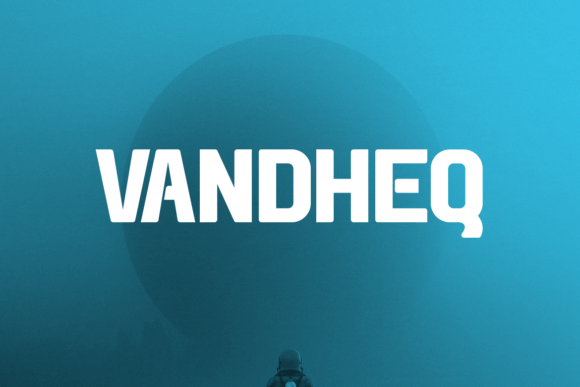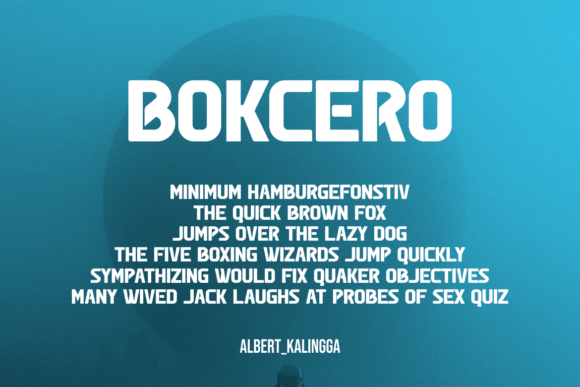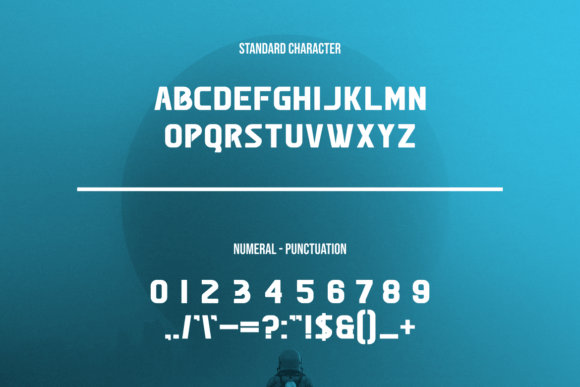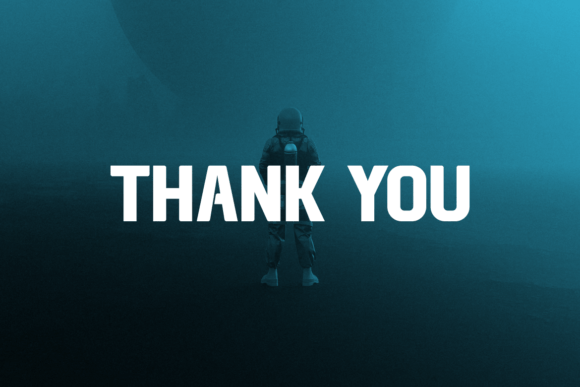
The Ultimate Guide to Bokcero Font: Elevate Your Designs with this Modern Display Font
I’ll never forget the time I was working on a branding project for a trendy coffee shop. My client wanted a font that was both modern and eye-catching, but I was struggling to find the perfect fit. That’s when I stumbled upon Bokcero Font, and it instantly became the star of the show! In this article, I’ll share my love for Bokcero, its features, and how to make the most of it in your designs.
An Honest Review of Bokcero Font
So, what makes Bokcero so special? Let’s dive into the good stuff!
- ✨ Modern and sleek design: Bokcero’s clean lines and geometric shapes make it perfect for headlines, titles, and display text.
- ✅ Highly legible: Despite its modern look, Bokcero remains easy to read, even at smaller sizes.
- 💡 Versatile: This font can be used for a wide range of projects, from branding and advertising to packaging and digital media.
Of course, no font is perfect, and Bokcero has a few minor quirks:
- 🤔 Limited use for body text: While Bokcero is amazing for display text, it may not be the best choice for longer paragraphs or body text.
- ⚠️ Some characters may require manual kerning: As with any font, you may need to adjust the kerning for certain character combinations to achieve optimal results.
- Experiment with OpenType features like ligatures and stylistic alternates to add visual interest.
The Story Behind Bokcero Font
While the true origins of Bokcero are shrouded in mystery, it’s said that the font was designed with the modern designer in mind. Inspired by the latest design trends and a passion for typography, Bokcero aims to bring a fresh perspective to the world of display fonts.
| Font Name | Bokcero Font |
| Author | kalingga.albert |
| What makes Bokcero a modern display font? | Bokcero’s sleek design, clean lines, and geometric shapes give it a distinctly modern feel. |
| Can I use Bokcero for body text? | While Bokcero is amazing for display text, it may not be the best choice for longer paragraphs or body text due to its modern design. |
| Is Bokcero suitable for branding and advertising? | Absolutely! Bokcero’s versatility and legibility make it perfect for branding, advertising, and marketing materials. |
| Can I use Bokcero for digital media? | Yes, Bokcero is optimized for digital use and can be used for websites, social media graphics, and more. |